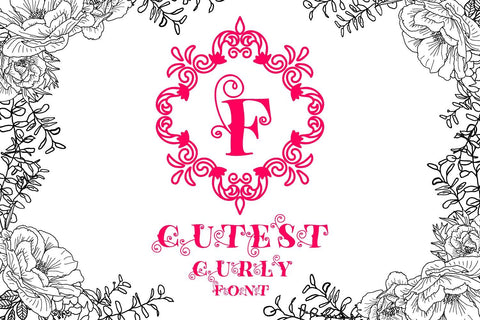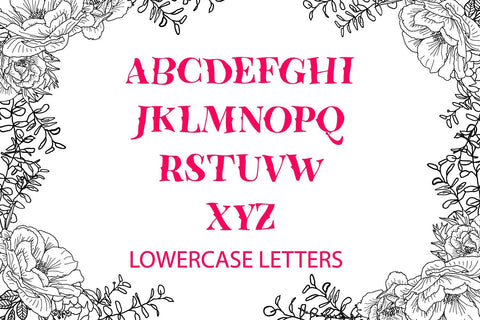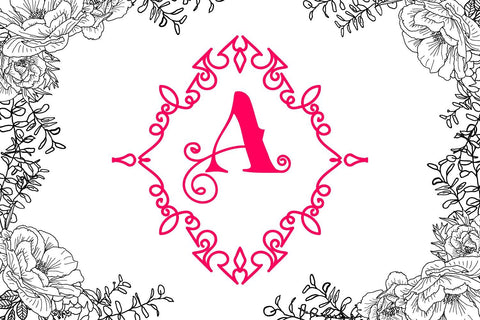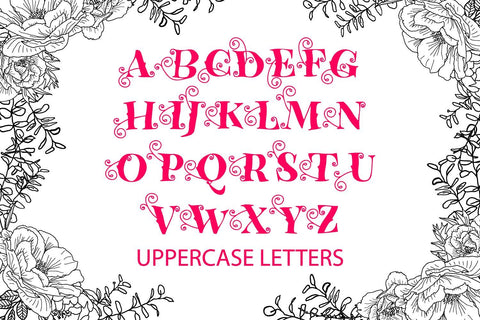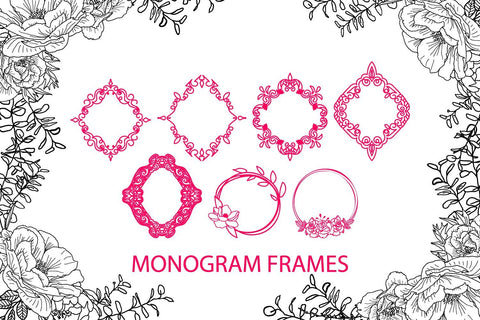
Cutest Curly Font Monogram
Cutest Curly Font Monogram is an adorable font with curly letters suitable for digital projects, cards, invitations, weddings, logos, kids monograms, website or crafts projects. Includes .otf. Perfect for magazine, news papers, posters, in branding, headers, invitations and save the dates, flyers, packaging, bags and so much more.